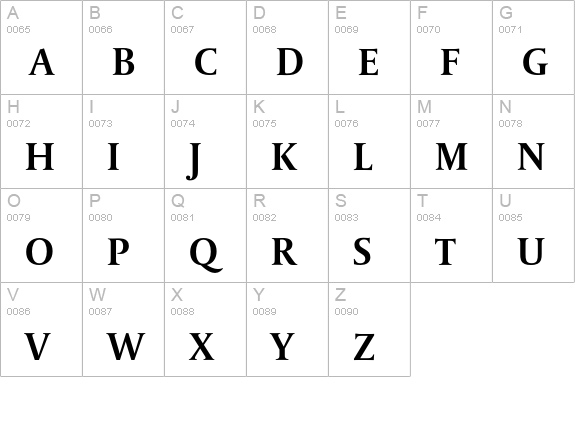
DTLParadoxST-Bold Font Details
DTLParadoxST-Bold is a strong, high-contrast variant in the DTLParadoxST typeface family \xE2\x80\x94 well suited to headlines, attention-grabbing titles, and strong calls-to-action.
DTLParadoxST-Bold is a striking and bold typeface that commands attention with its strong and impactful presence. This font exudes a sense of confidence and modernity, making it perfect for headlines, posters, and other design projects that require a bold statement. The sharp lines and geometric shapes of DTLParadoxST-Bold give it a sleek and contemporary look that is sure to stand out. What makes DTLParadoxST-Bold even more appealing is that it is available for free download at FontsMarket.com. This means that you can easily access this stylish and versatile font for your creative projects without any cost. Whether you are a professional designer looking for a powerful font to enhance your work or a casual user in need of a bold typeface for personal projects, DTLParadoxST-Bold is a fantastic choice that won't break the bank. Download it today and add a touch of bold sophistication to your designs!